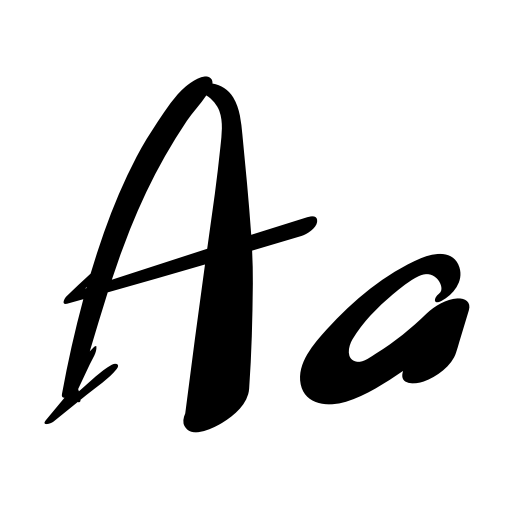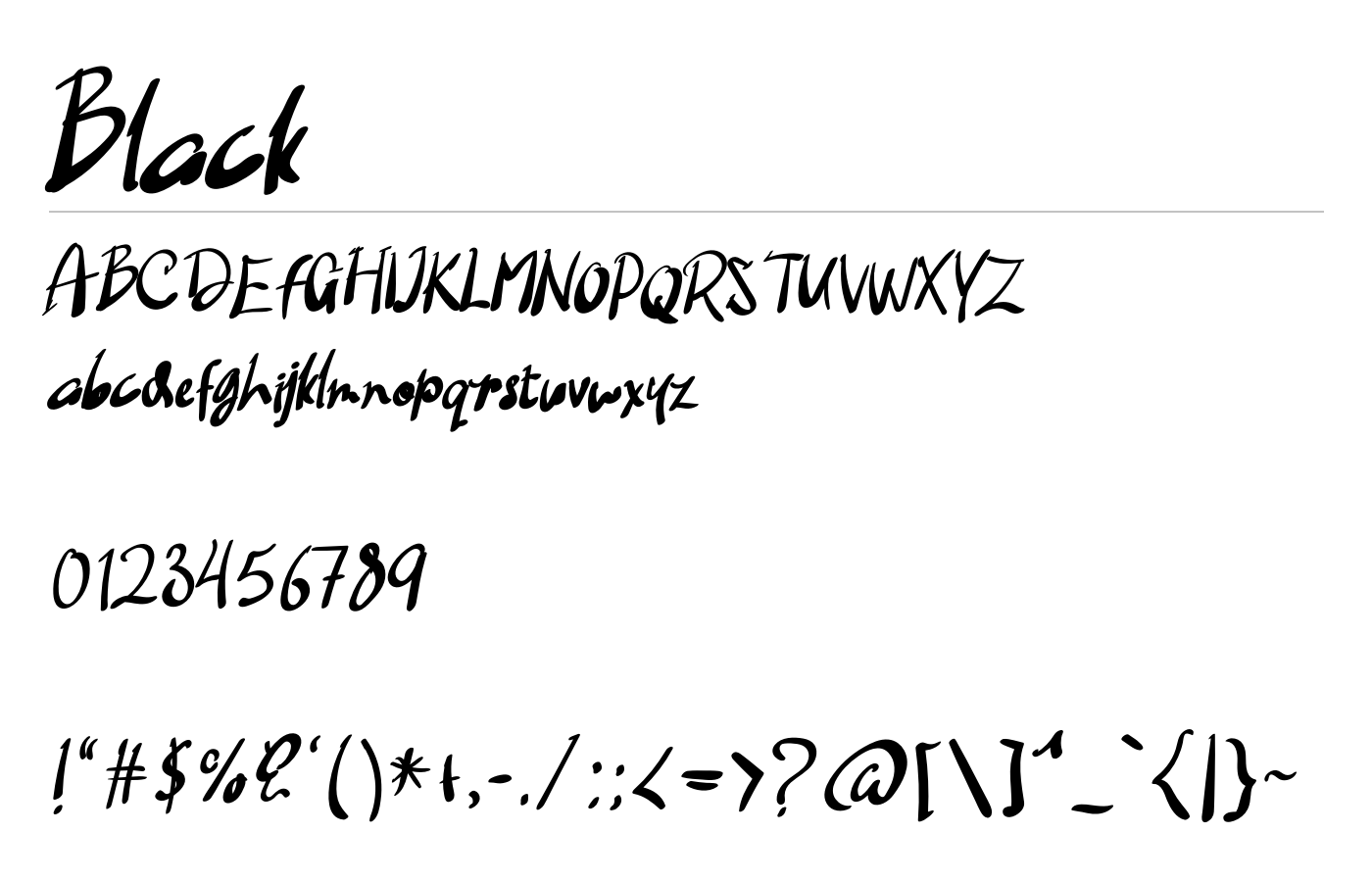
Black Font is a bold, energetic script typeface with a lively, hand-brushed feel that adds personality and movement to any design. Its dynamic strokes and casual, slightly irregular shapes make it perfect for creative, playful branding or eye-catching headlines where a friendly yet confident impression is desired. This font works especially well in logos, posters, and packaging that want to convey an artistic and informal vibe.
Black Font
About Black Font
| Font family | Black Font |
| Designer | Nur Edi Prayitno |